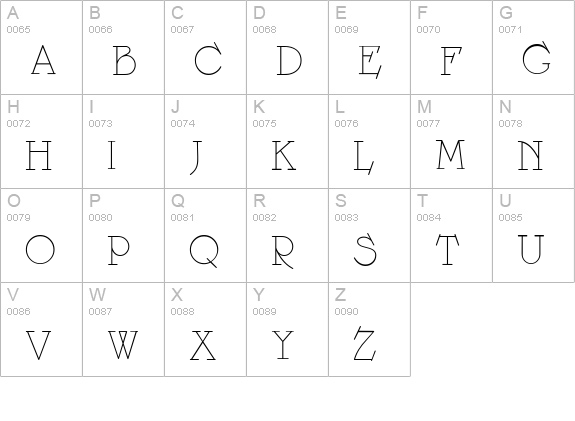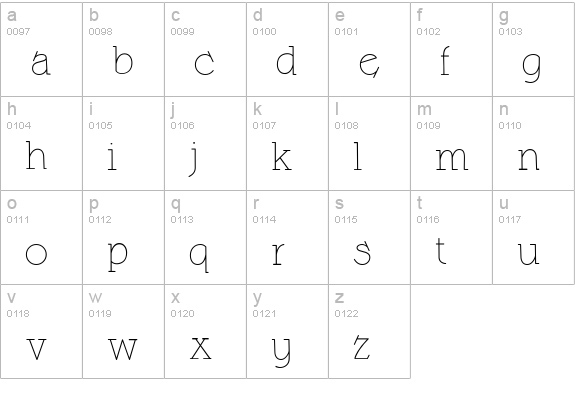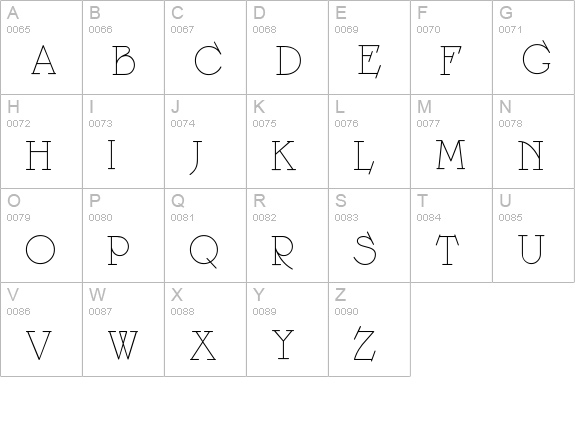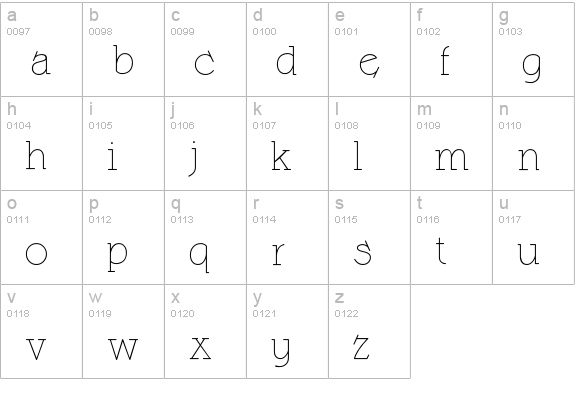
CK Flip Serif Font Details
Introducing CK Flip Serif, a stunning and versatile font that exudes elegance and sophistication. This timeless serif typeface strikes the perfect balance between classic appeal and modern design, making it ideal for a wide range of projects. With its clean lines, sharp serifs, and stylish curves, CK Flip Serif brings a touch of refinement to any text or design. What sets CK Flip Serif apart is not just its beauty, but also its accessibility. This exceptional font is available for free download at FontsMarket.com, making it easily accessible to designers, creators, and typography enthusiasts alike. Whether you're working on a branding project, editorial design, or any other creative endeavor, CK Flip Serif is sure to elevate your work with its charm and sophistication. Download CK Flip Serif today and unlock the potential of this exquisite font to bring your ideas to life with style and grace.